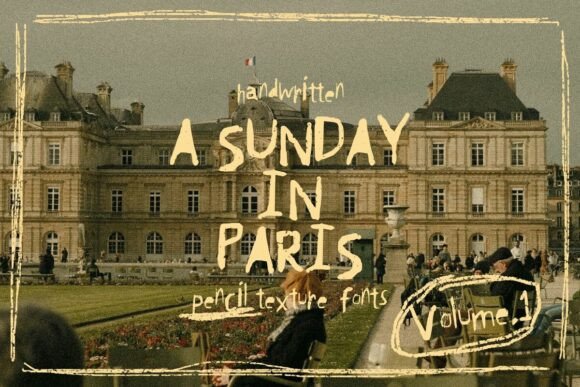
A Sunday in Paris Font: Adding a Touch of Whimsy to Your Designs
Are you looking for a font that can add a playful, childlike charm to your designs? Look no further than A Sunday in Paris Font. This beautiful handwritten font is lovingly crafted to bring a unique and creative vibe to your projects. With its pencil-textured strokes and doodle-like feel, it’s perfect for designs that require a fun, quirky, and cheerful touch.
The Inspiration Behind A Sunday in Paris Font
A Sunday in Paris Font is inspired by the carefree and artistic vibe of a lazy Sunday afternoon in the city of love, Paris. The font’s creator aimed to capture the essence of a child’s drawing, with its irregular strokes and playful feel. The result is a font that exudes a sense of whimsy and creativity, making it perfect for designs that require a personal touch.
Key Features of A Sunday in Paris Font
- Handwritten style: A Sunday in Paris Font is a beautifully crafted handwritten font that adds a personal touch to your designs.
- Pencil-textured strokes: The font features pencil-textured strokes that give it a unique and creative feel.
- Doodle-like feel: The font’s doodle-like feel makes it perfect for designs that require a playful and quirky touch.
- Childlike charm: A Sunday in Paris Font has a childlike charm that makes it ideal for kids’ themes, cheerful branding, and personal stationery.
Uses of A Sunday in Paris Font
A Sunday in Paris Font is a versatile font that can be used in a variety of design projects. Here are some ideas to get you started:
- Kids’ themes: The font’s playful and childlike charm makes it perfect for kids’ themes, such as children’s books, educational materials, and kids’ party invitations.
- Cheerful branding: A Sunday in Paris Font is ideal for brands that want to convey a fun, quirky, and creative vibe. It’s perfect for logos, business cards, and marketing materials.
- Personal stationery: The font’s whimsical feel makes it perfect for personal stationery, such as greeting cards, invitations, and thank-you notes.
- Digital designs: A Sunday in Paris Font can be used in digital designs, such as social media graphics, blog posts, and website headers.
Tips for Using A Sunday in Paris Font
Here are some tips for using A Sunday in Paris Font in your designs:
- Pair it with a simple font: A Sunday in Paris Font is a bold and playful font, so it’s best to pair it with a simple font to create contrast.
- Use it in moderation: While A Sunday in Paris Font is a beautiful font, it can be overwhelming if used excessively. Use it in moderation to create a balanced design.
- Experiment with colors: The font’s playful feel makes it perfect for bright and bold colors. Experiment with different colors to find the perfect combination for your design.
Benefits of Using A Sunday in Paris Font
Here are some benefits of using A Sunday in Paris Font in your designs:
- Unique and creative vibe: A Sunday in Paris Font adds a unique and creative vibe to your designs, setting them apart from others.
- Playful and childlike charm: The font’s playful and childlike charm makes it perfect for designs that require a fun and quirky touch.
- Versatile: A Sunday in Paris Font is a versatile font that can be used in a variety of design projects.
A Sunday in Paris Font is a beautiful handwritten font that adds a playful, childlike charm to your designs. With its unique pencil-textured strokes and doodle-like feel, it’s perfect for projects that require a fun, quirky, and creative vibe. Whether you’re designing for kids’ themes, cheerful branding, or personal stationery, A Sunday in Paris Font is a great choice. So why not give it a try and see how it can elevate your designs?